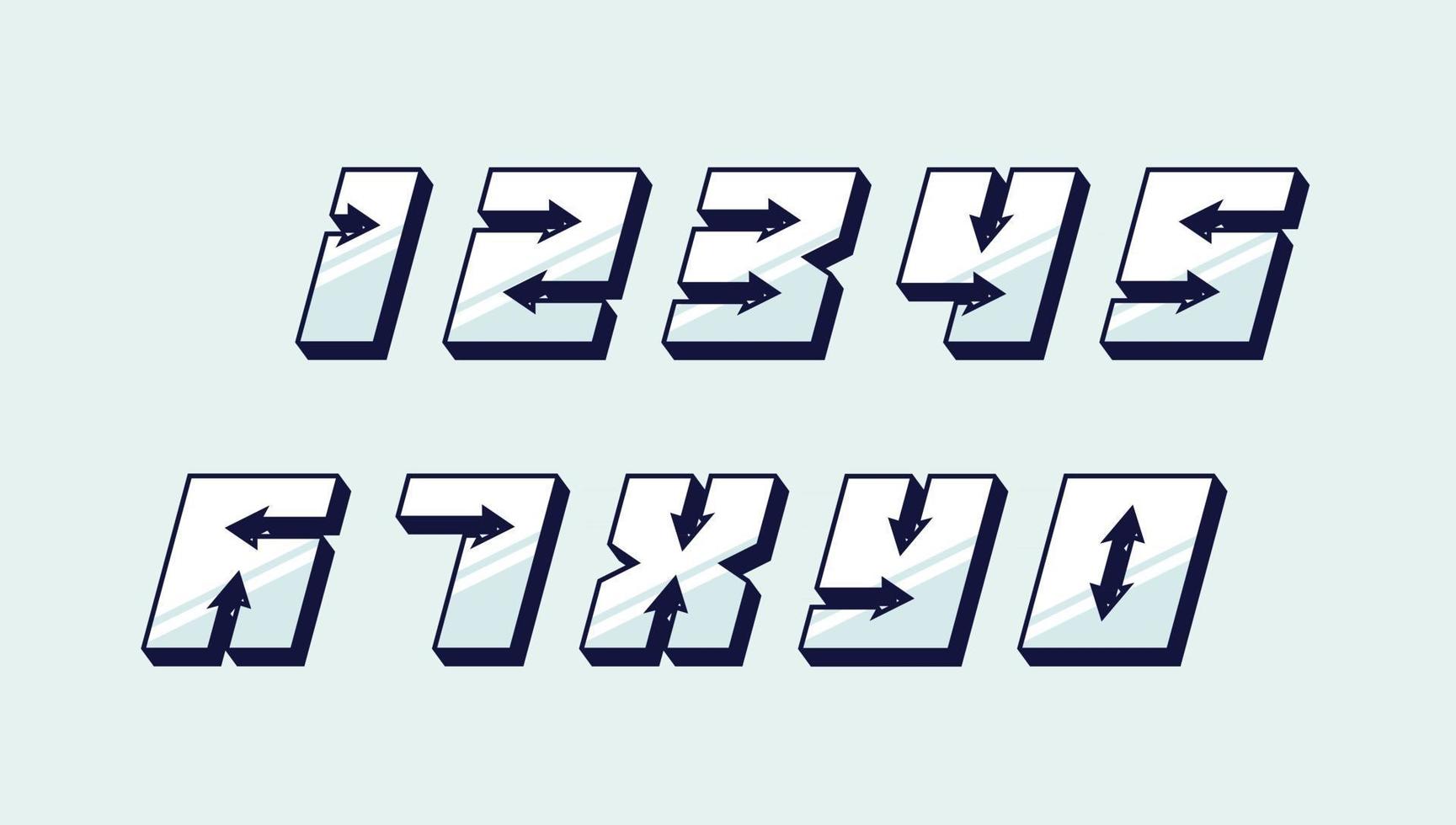
Numbers colourful set in 3d italic retro style with arrows in speedy trendy typography consisiting of 1 2 3 4 5 6 7 8 9 0 for poster design or greeting card. Vector modern countdown font Pro Vector